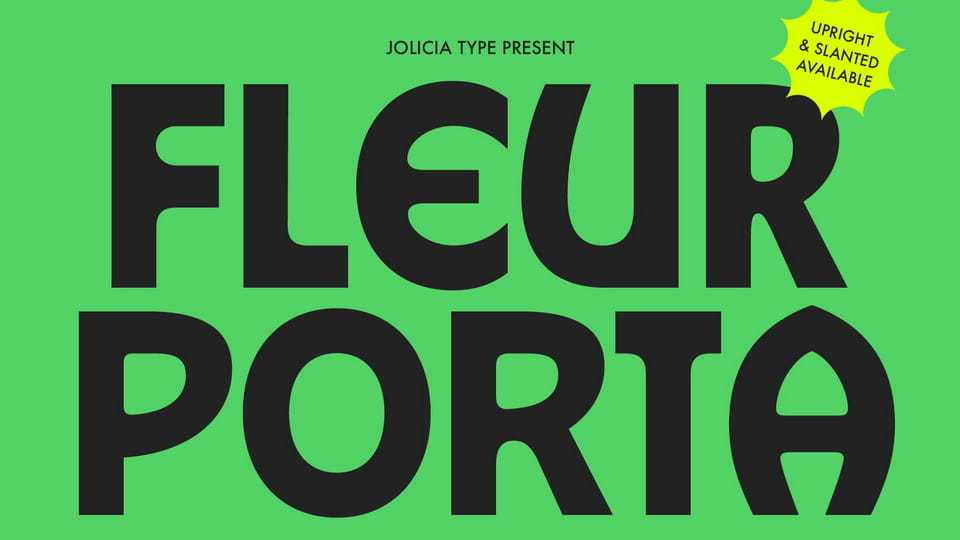
Download Fleur Porta font, a distinctive display sans serif typeface that blends modern clarity with subtle Art Deco elegance, featuring clean geometric forms and refined decorative details.